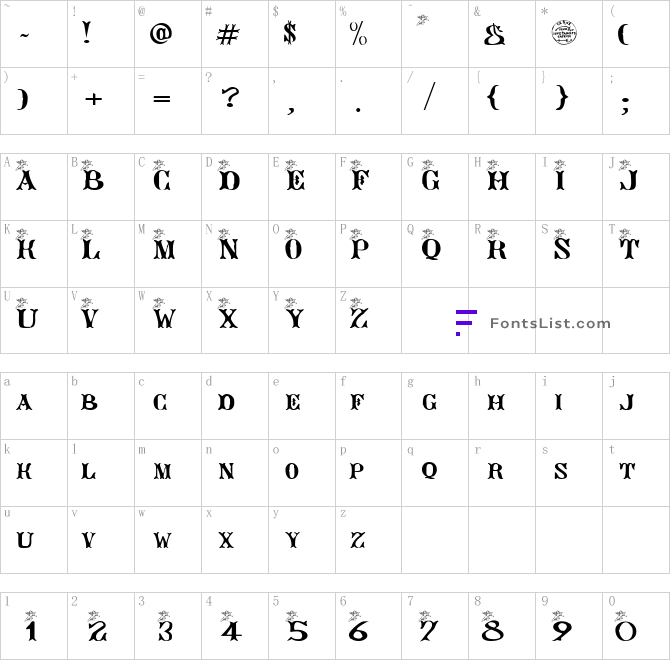
- Font Name:AngeGardien
AngeGardien.ttf is a very beautiful artistic font, AngeGardien.ttf is widely used in the design and printing of various books and pictures,AngeGardien.ttf has a strong visual impact,AngeGardien.ttf is a commonly used font in newspapers, magazines and books, and is used in posters, e-commerce Poster design, store design, logo design, font design and other fields.AngeGardien.